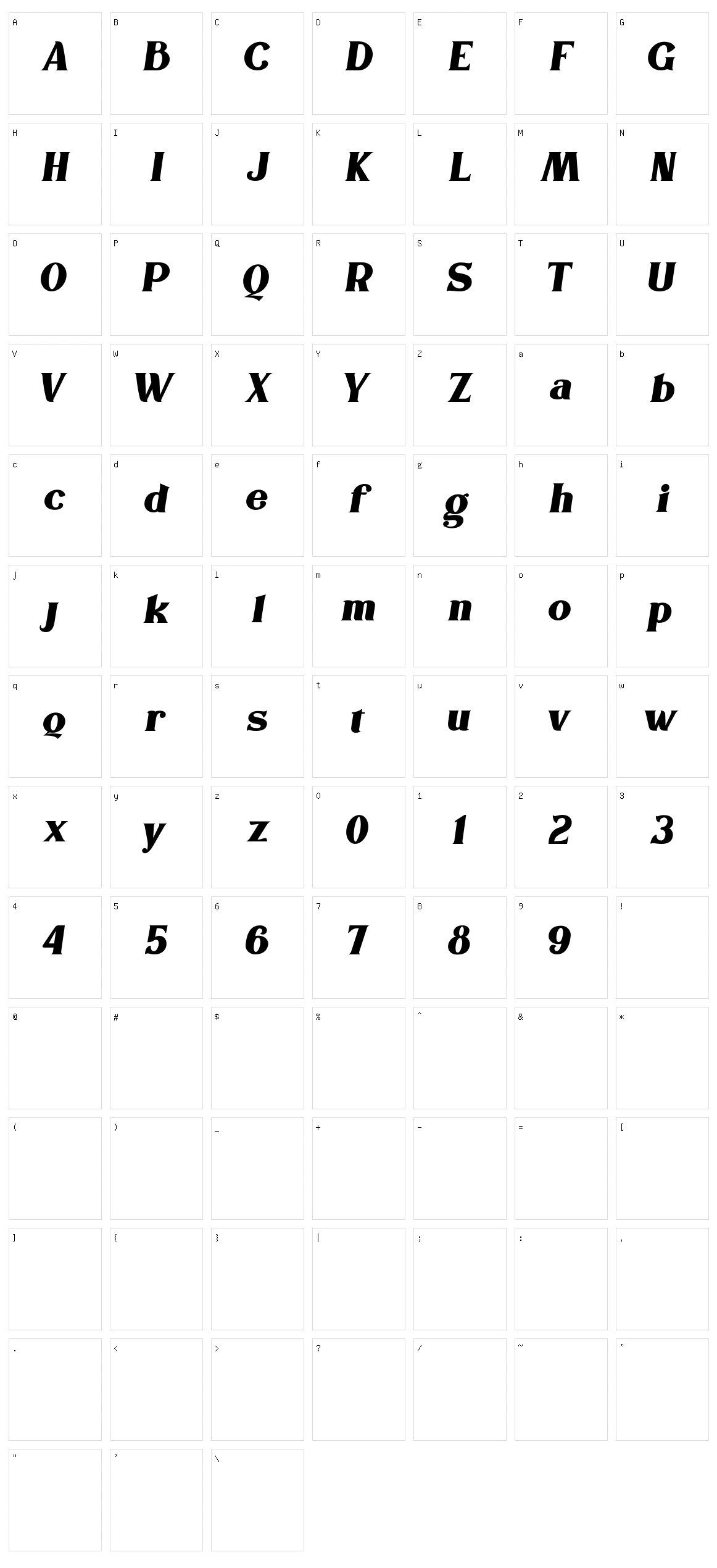
The free font The Houls is carefully designed by Muhammad Romzul Khoir, showcasing a thoughtful balance of creativity and usability and falls under the Serif font style. When you download the ZIP file, it contains only 15.11 KB of font files, making it lightweight and quick to download. Please review the license details below to understand permitted usage and distribution rights. If license information is not available, we recommend using this font for personal projects only or contacting the author directly for commercial usage permissions.